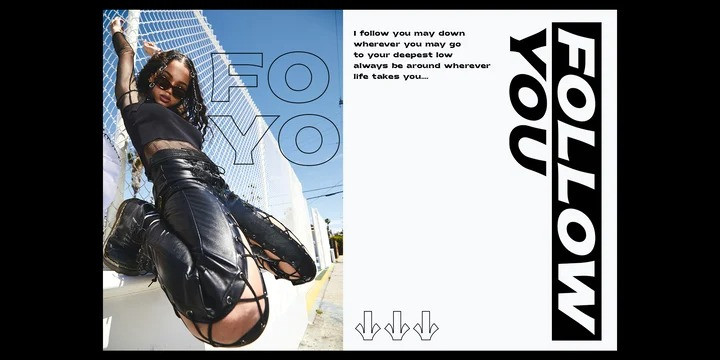
Pontiff Wide Font
Pontiff Wide Serif Font
This is an upper and lowercase serif font created by Jehoo Creative with sharp edges and has a wide shape referring to the neo vintage trend.
Equipped with italic style and outline increasingly make this font striking and prominent in all its shapes and styles, bold format provides a great personality type in the title.
Characters that are well-suited for a wide variety of applications from editorial design to branding, advertising, publicity and digital.